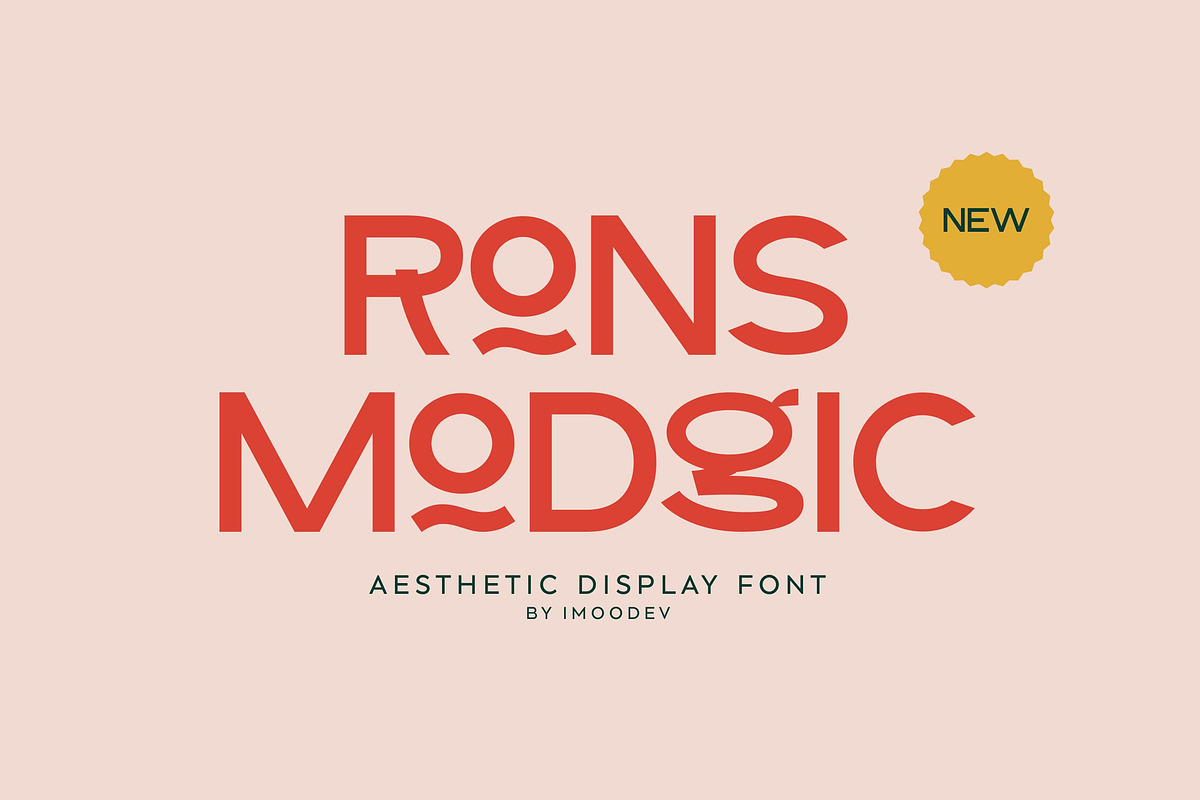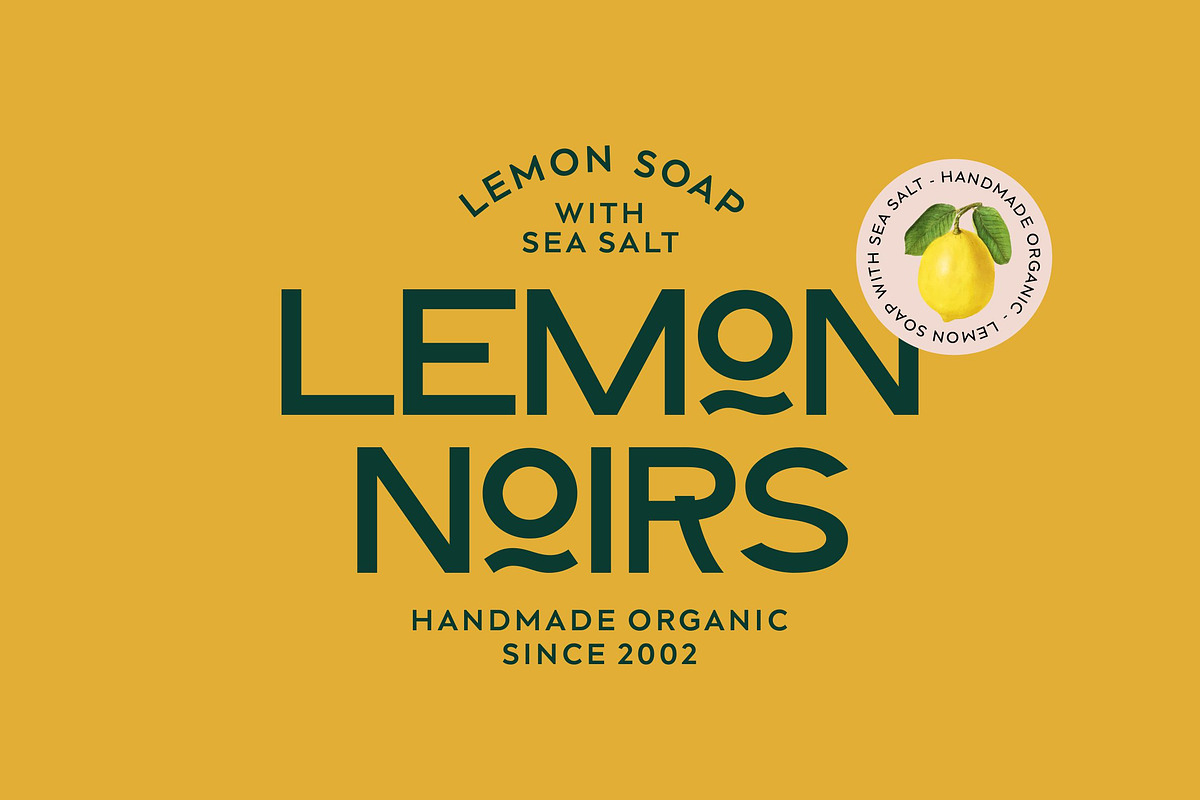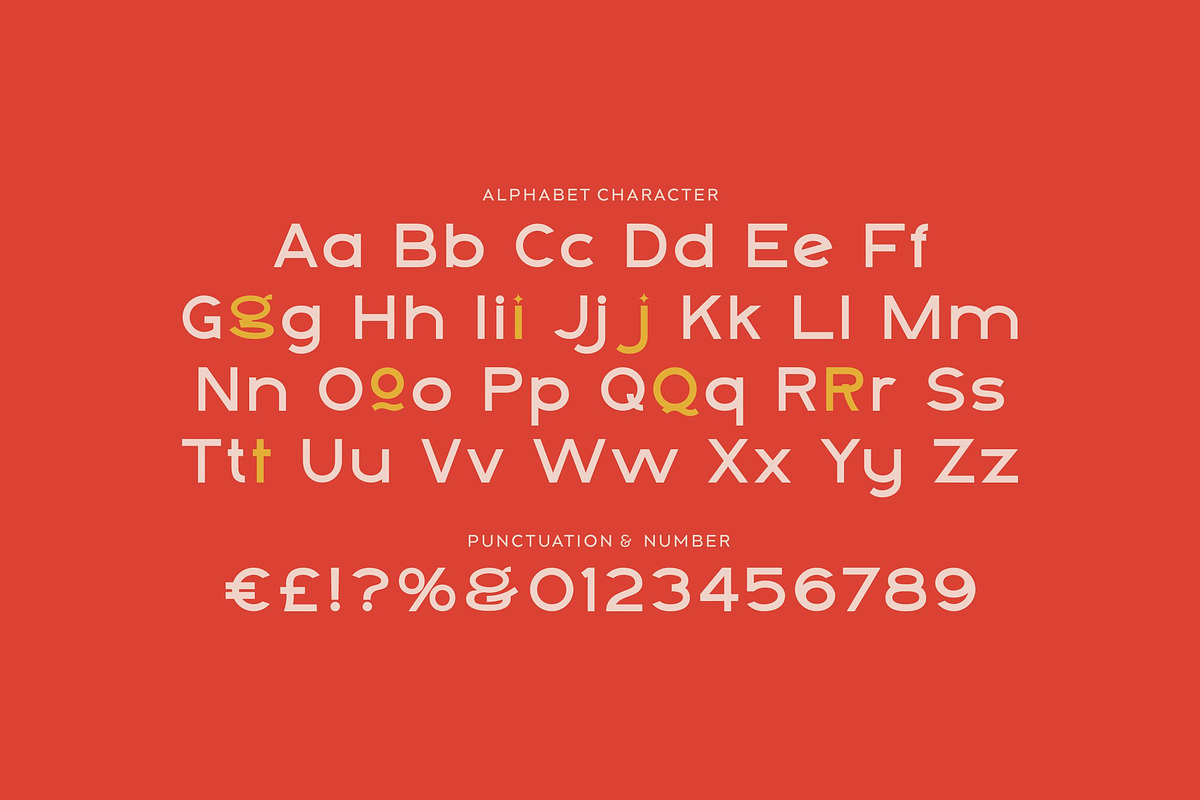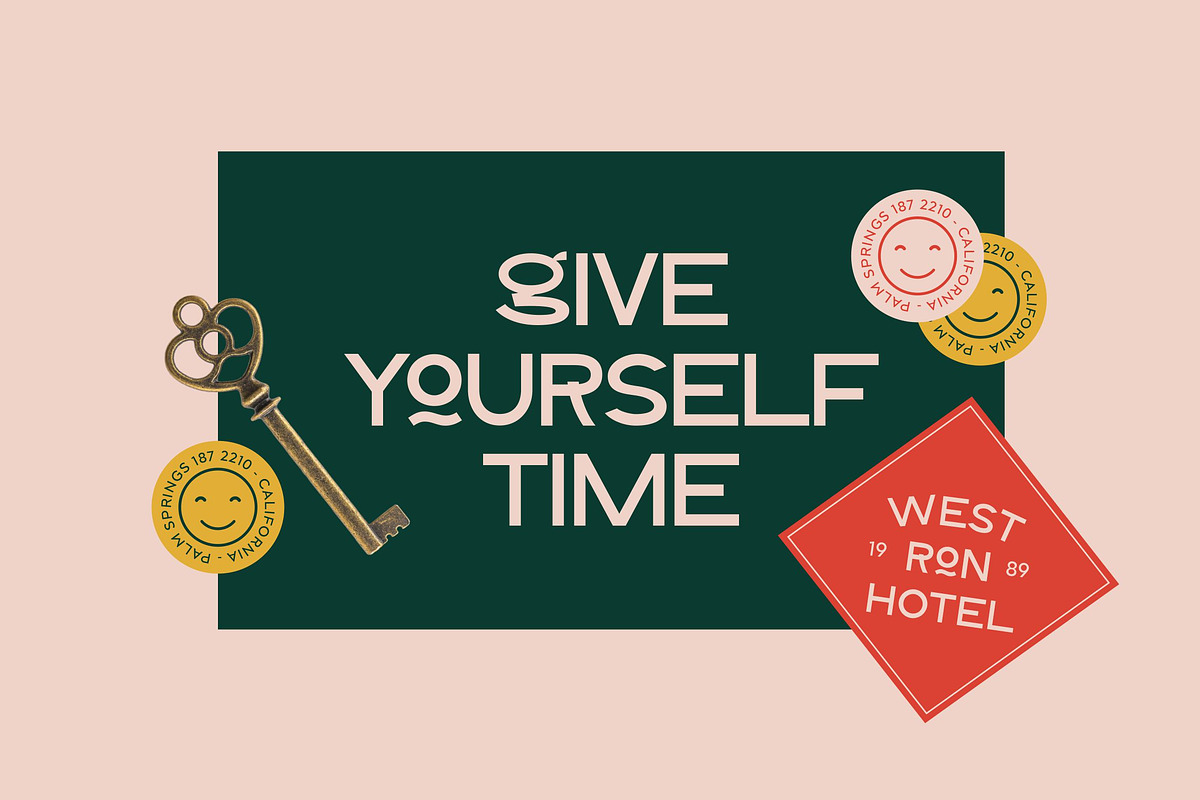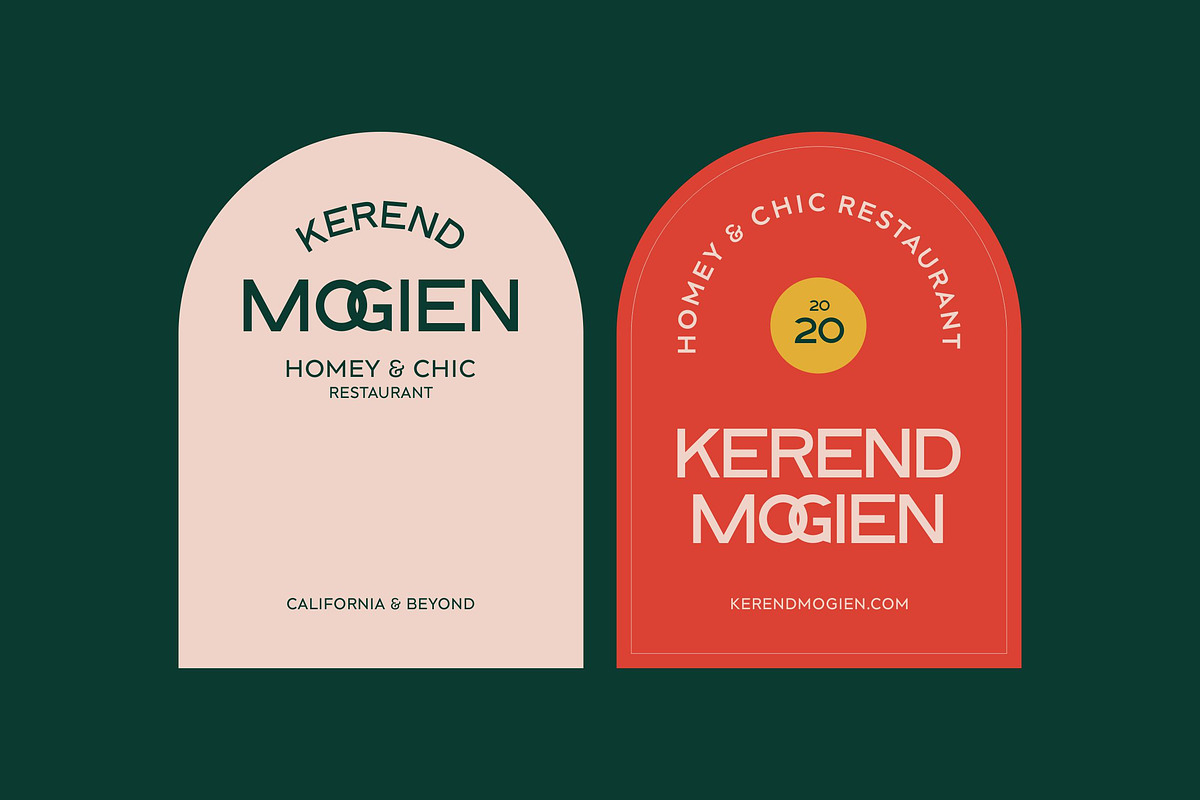
Rons Modgic - Modern Typography
Rons Modgic is modern typography with visual elegance, smooth curves, and beautiful ligatures clear, making your work look true and attractive.
A versatile font that works in both large and small sizes. This font is suitable for a wide variety of projects such as invitations, logos, branding, magazine, social media post or story, cards, product packaging, mugs, quotes, poster, labels, signatures, websites, and more.
A font that is perfect for all business sectors including personal projects, studio, corporate, creative agency, industrial, company, etc.